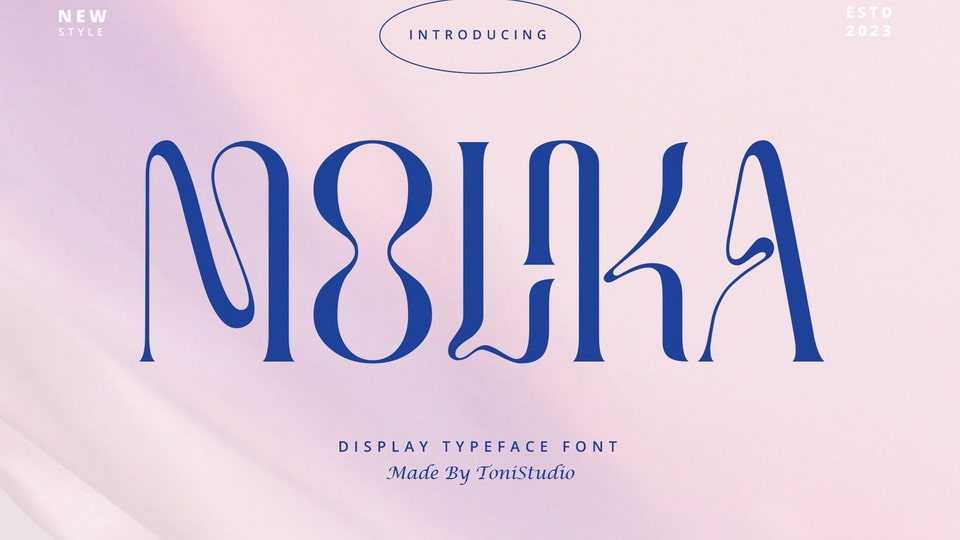
Download Molika font, a unique experimental serif typeface with distinctive characters. With a mix of vintage and modern accents, Molika font looks perfect when paired with a conventional serif/sans serif.
Designer: ToniStudio